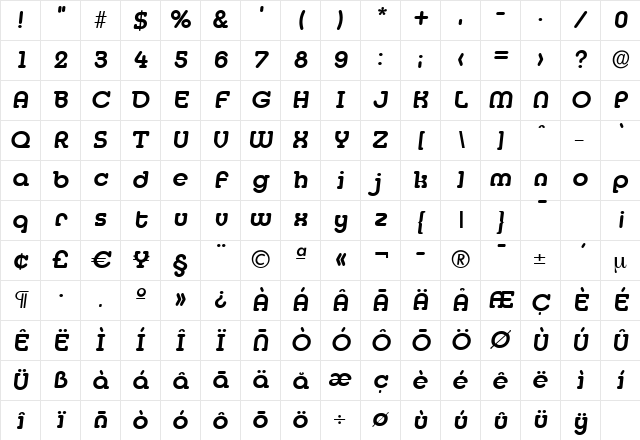
Complete DesireeBeckerMedium Italic glyph index. Displaying only characters natively supported by DesireeBeckerMedium Italic font.
DesireeBeckerMedium is a composed and adaptable typeface that performs quietly and consistently across a wide range of design contexts. The slanted form adds forward momentum and visual energy.
Pro Tip: Use DesireeBeckerMedium for emphasis, pull quotes, and subheadings where its slanted energy can add rhythm to the layout.